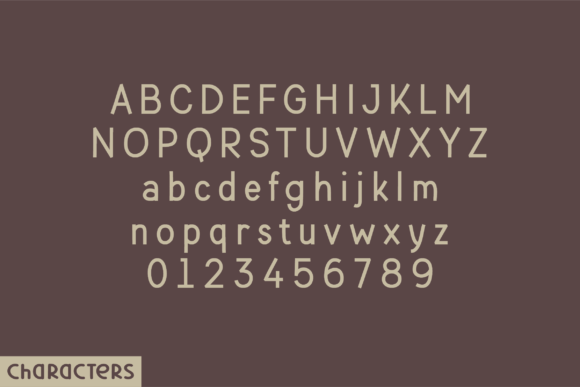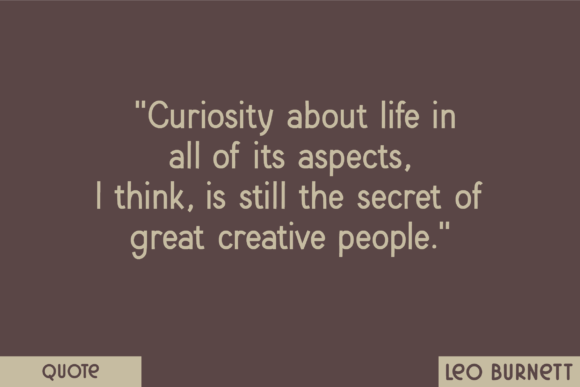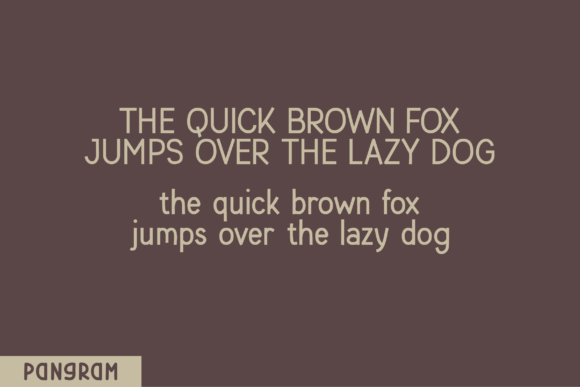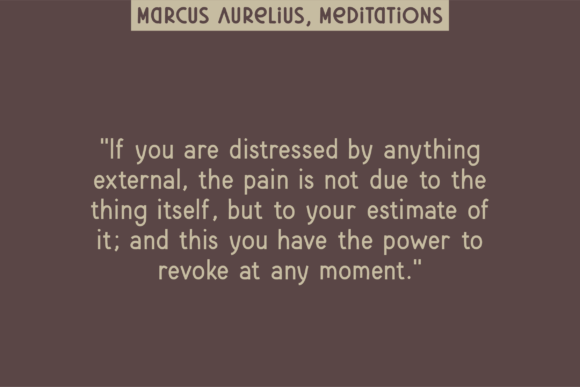
Introducing Avocados Font: The Unique Sans Serif for Creative Designs
Are you tired of using the same old fonts for your designs? Look no further than Avocados Font, a natural sans serif font that is sure to make your projects stand out. What makes Avocados Font truly unique is its distinctive approach to character design – not a single node in each character’s indentation has been altered, resulting in a font that is both interesting and one-of-a-kind.
The Story Behind Avocados Font
Avocados Font is a result of a meticulous design process that aimed to preserve the natural curves and lines of the characters. This approach gives the font a fresh and organic feel, making it perfect for a wide range of design applications. Whether you’re working on a quote, note, tee, or any product design, Avocados Font is sure to add a touch of uniqueness and personality to your project.
Key Features of Avocados Font
- Natural Sans Serif: Avocados Font boasts a clean and modern sans serif design that is both elegant and approachable.
- Unique Character Indentation: The font’s distinctive feature is that not a single node in each character’s indentation has been changed, giving it a truly organic look.
- Versatile: Avocados Font is perfect for a variety of design projects, including quotes, notes, tees, and product designs.
- Easy to Read: Despite its unique design, Avocados Font remains highly legible, making it suitable for both digital and print applications.
What Makes Avocados Font Stand Out
In a world where fonts are a dime a dozen, Avocados Font stands out from the crowd. Its unique design approach and natural feel make it an excellent choice for designers looking to add a bit of personality to their work. Here are a few reasons why Avocados Font should be your go-to font for your next project:
- Creativity Unleashed: With Avocados Font, you can add a touch of creativity and whimsy to your designs, making them more engaging and memorable.
- Branding Consistency: The font’s unique design can help establish a consistent brand identity that sets you apart from the competition.
- Cross-Platform Compatibility: Avocados Font is versatile enough to be used across various platforms, from digital media to print materials.
How to Use Avocados Font in Your Designs
Avocados Font is incredibly easy to use and can be incorporated into a variety of design projects. Here are a few ideas to get you started:
- Quotes and Sayings: Use Avocados Font to create visually appealing quotes and sayings that are sure to grab attention.
- Notes and Journals: Add a personal touch to your notes and journals with Avocados Font, making them more enjoyable to read and write in.
- T-Shirts and Merchandise: Create unique and eye-catching designs for t-shirts and other merchandise using Avocados Font.
- Product Design: Incorporate Avocados Font into your product designs to give them a distinctive and memorable look.
Avocados Font is a game-changer for designers and crafters looking to add a unique touch to their projects. Its natural sans serif design, combined with its distinctive character indentation, makes it a truly one-of-a-kind font. Whether you’re working on a quote, note, tee, or product design, Avocados Font is sure to elevate your work and make it stand out. So why settle for ordinary fonts when you can have a font that’s truly extraordinary? Give Avocados Font a try today and discover the difference it can make in your designs.